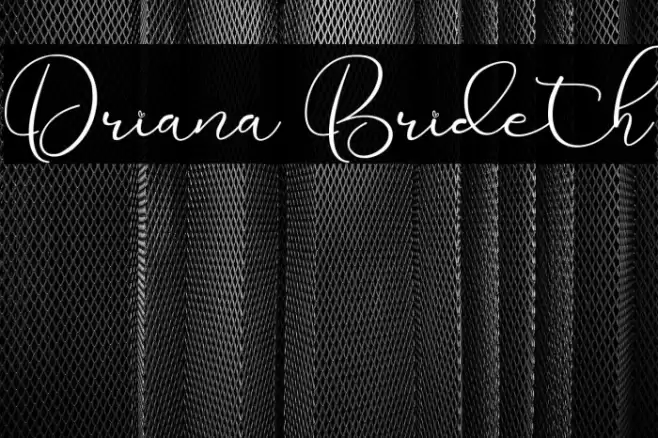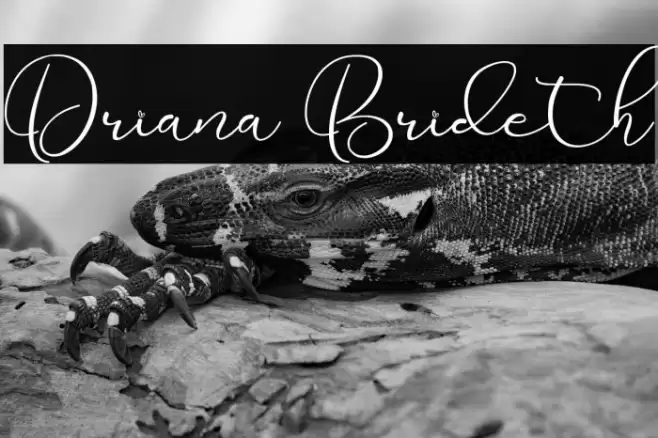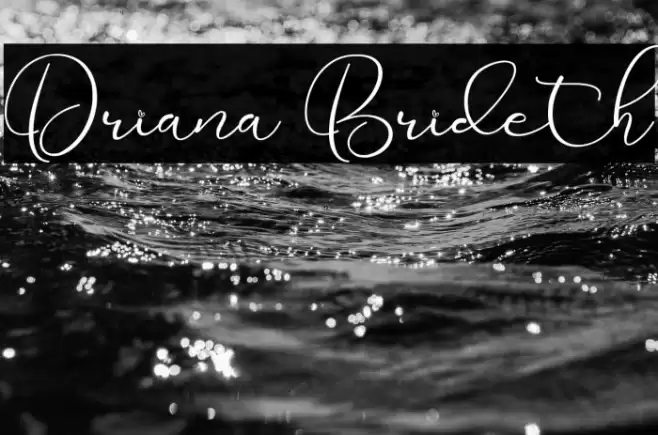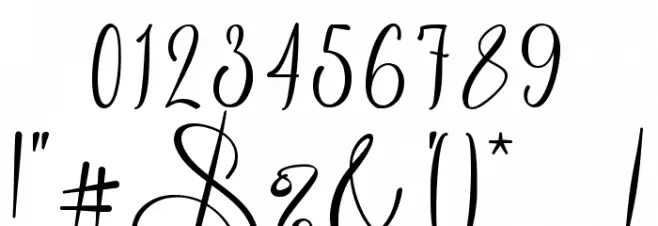
Driana Brideth Font
Driana Brideth Description
This elegant script font features flowing, interconnected letters with a graceful and sophisticated appearance. The uppercase letters are tall and slender, with delicate loops and swashes that add a touch of flair. The lowercase letters maintain a consistent flow, enhancing readability while preserving the font's decorative nature. Numbers are styled to match the overall script aesthetic, with slight variations in stroke thickness that add character. Special characters are thoughtfully designed to complement the alphabet, ensuring a cohesive look across all text. This font exudes a sense of elegance and refinement, making it ideal for formal invitations, branding, and any project that requires a touch of sophistication.
An elegant script font with flowing, interconnected letters and graceful swashes from Regular fonts.
- Proposed Projects: Ideal for wedding invitations, luxury branding, elegant stationery, and formal event materials.
- Overall Style: Elegant
- Use Case: Invitations, Branding, Stationery